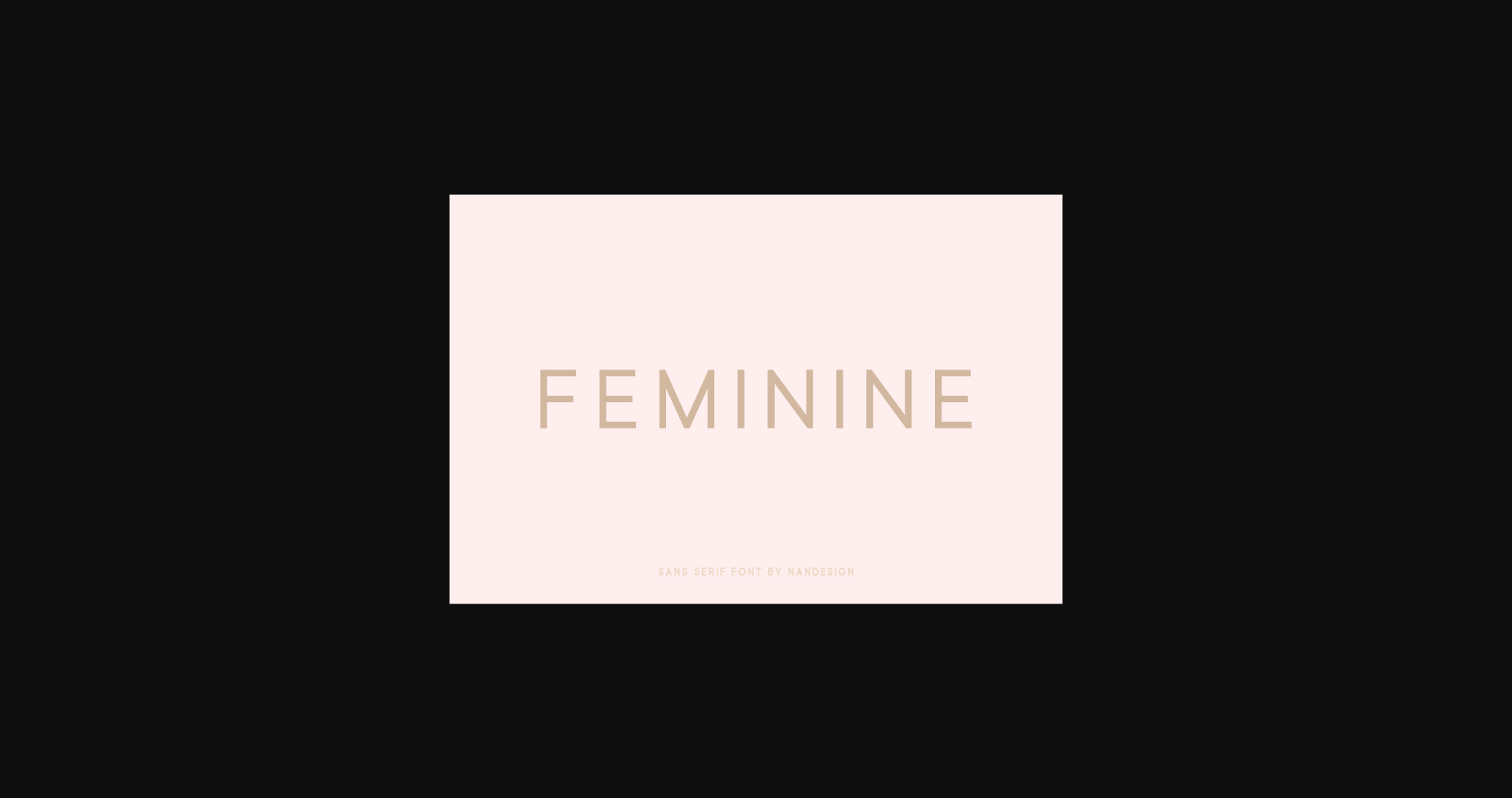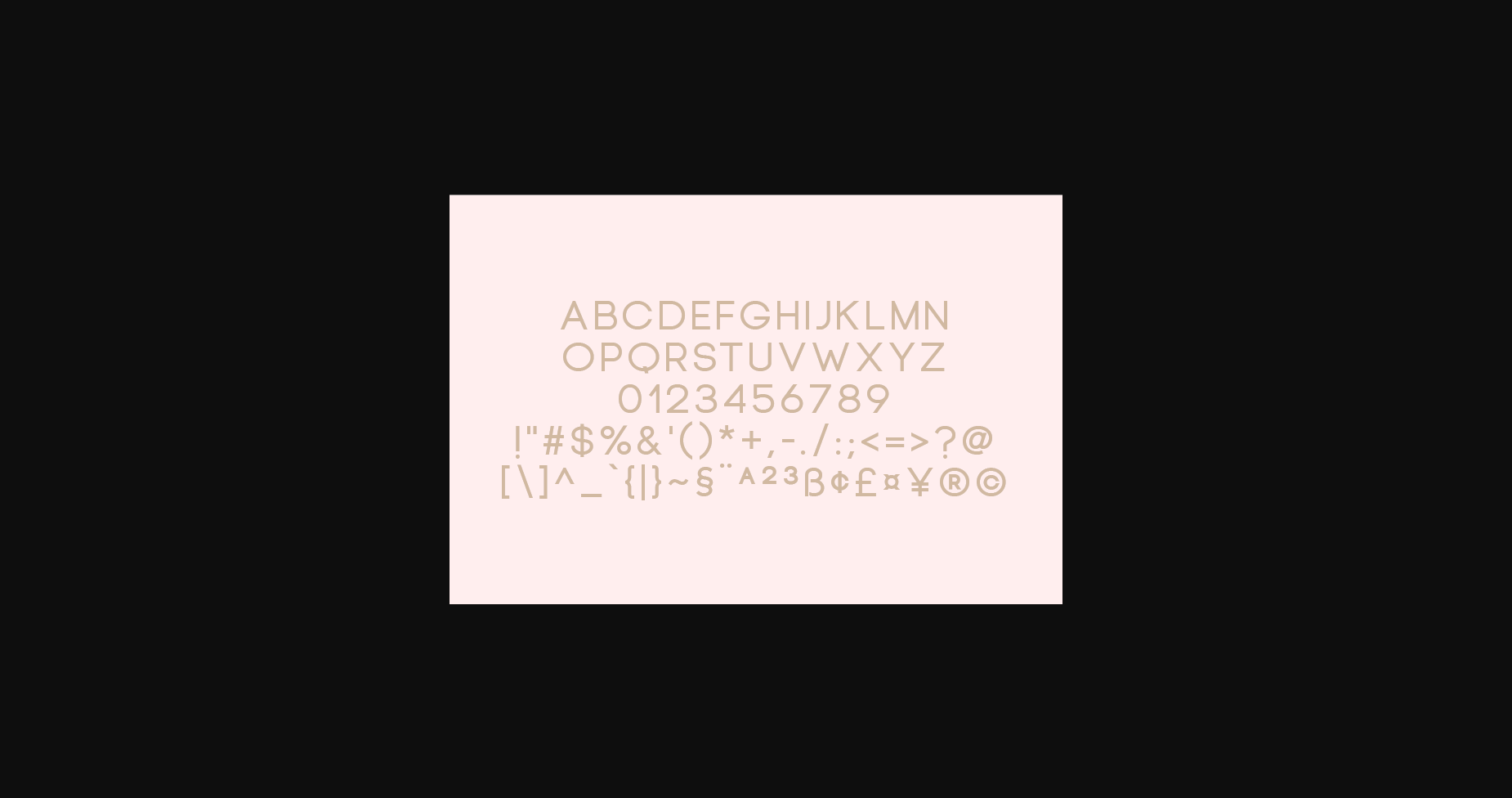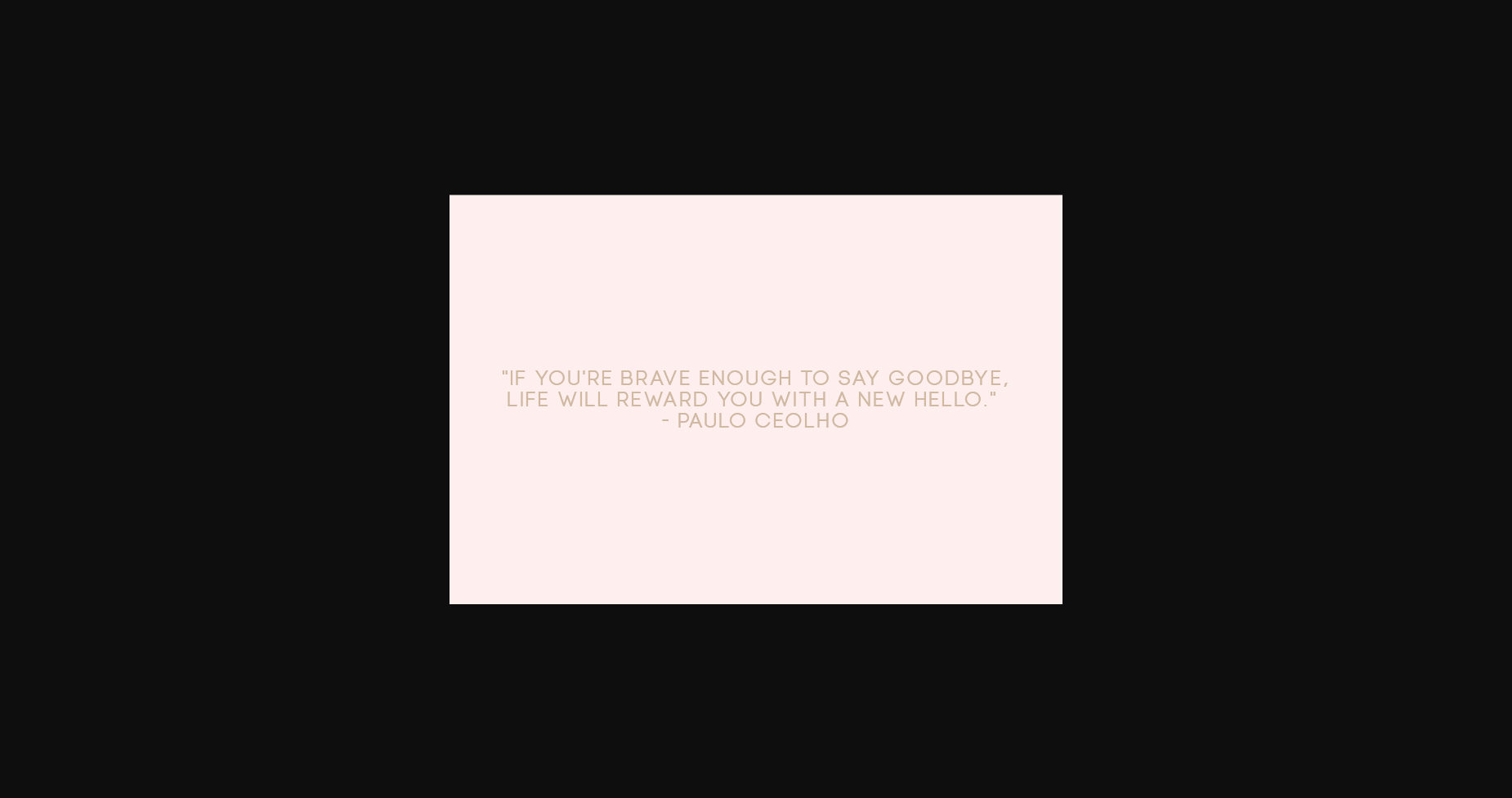
Feminine Font
About Feminine Font
Feminine is a stunning sans serif to complement every project you’re working on.
Use to create beautiful headings, gorgeous invitations, stunning logos, and so much more!! Perfect for displays, headers, invitations, save-the-dates, weddings, and so much more! It contains an uppercase alphabet with numbers and symbols.